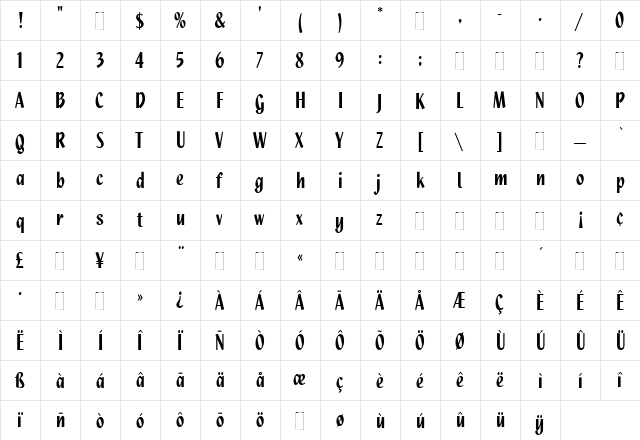
Quixley Regular Font Preview
Quixley Regular
Quixley Regular Font Details
Design Context for Quixley Typeface
Quixley offers clean, dependable letterforms without strong stylistic allegiance, making it a practical choice for designers who need flexibility.
Pro Tip: Use Quixley in both headline and body roles to test its range before committing to a single application.